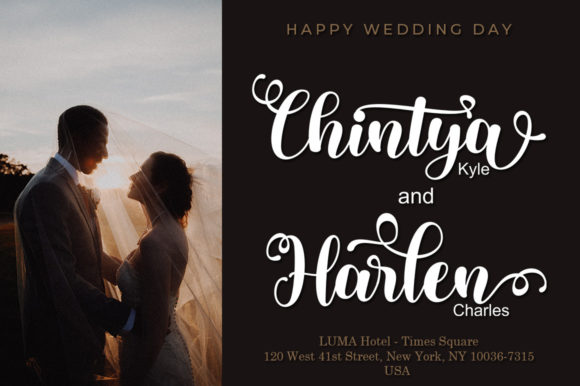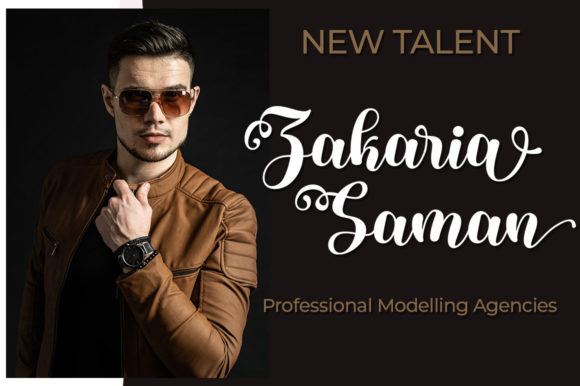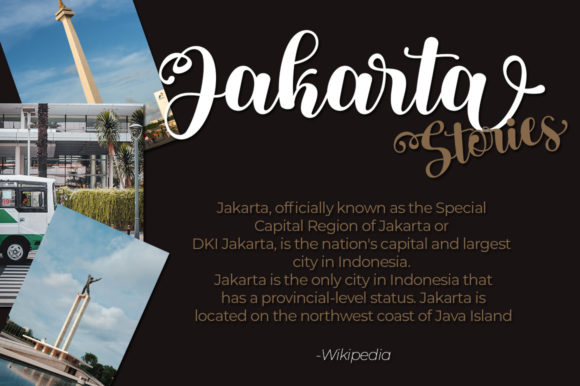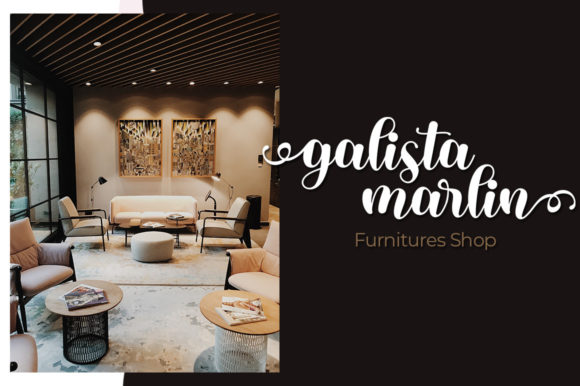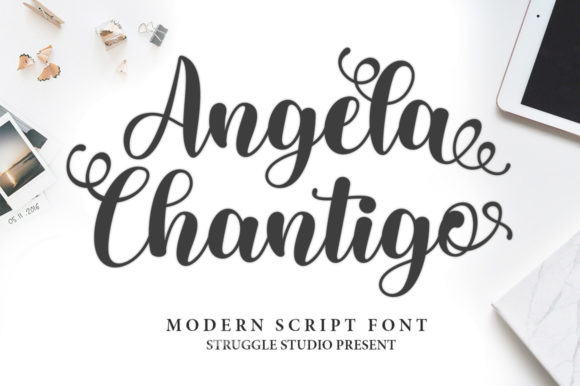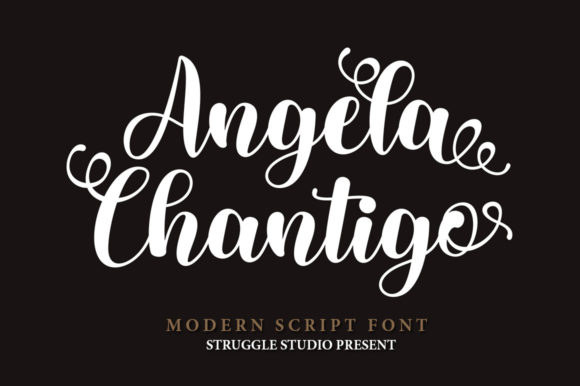
Discover the Charm of Angela Chantigo Font: A Timeless Handwritten Delight
Are you on the hunt for a font that exudes elegance, sophistication, and a touch of playfulness? Look no further than Angela Chantigo Font, a lovely and timeless handwritten font that’s perfect for creating eye-catching logos, branding, and quotes. In this article, we’ll dive into the world of Angela Chantigo, exploring its features, benefits, and uses, and why it’s a must-have for designers and crafters alike.
What is Angela Chantigo Font?
Angela Chantigo Font is a beautifully crafted handwritten font that’s designed to add a personal touch to your designs. Its unique and elegant style makes it an excellent choice for a wide range of projects, from logos and branding to quotes and social media graphics. With its flowing lines and delicate curves, Angela Chantigo is sure to capture the hearts of designers and audiences alike.
Key Features of Angela Chantigo Font
So, what sets Angela Chantigo Font apart from other fonts? Here are some of its key features:
- Timeless Design: Angela Chantigo Font boasts a classic, timeless design that’s perfect for creating designs that won’t go out of style anytime soon.
- Handwritten Style: Its handwritten style adds a personal touch to your designs, making them more relatable and engaging.
- PUA Encoded: Angela Chantigo Font is PUA encoded, which means you can access all of the glyphs and swashes with ease. This makes it easy to customize your designs and add unique touches.
- Elegant and Sophisticated: The font’s elegant and sophisticated style makes it perfect for creating high-end designs that exude luxury and refinement.
Benefits of Using Angela Chantigo Font
So, why should you choose Angela Chantigo Font for your next project? Here are some of the benefits of using this lovely font:
- Ease of Use: With its PUA encoding, Angela Chantigo Font is easy to use and customize, even for designers who are new to font editing.
- Versatility: The font’s versatility makes it perfect for a wide range of projects, from logos and branding to quotes and social media graphics.
- Unique Designs: With Angela Chantigo Font, you can create unique and eye-catching designs that stand out from the crowd.
- Time-Saving: The font’s comprehensive set of glyphs and swashes saves you time and effort, allowing you to focus on the creative aspects of your project.
Uses of Angela Chantigo Font
Angela Chantigo Font is perfect for a wide range of projects, including:
- Logos and Branding: Create eye-catching logos and branding materials that exude elegance and sophistication.
- Quotes and Social Media Graphics: Add a personal touch to your quotes and social media graphics with Angela Chantigo Font’s elegant and refined style.
- Stationery and Invitations: Create beautiful stationery and invitations that showcase your creativity and attention to detail.
- Web Design: Use Angela Chantigo Font to add a touch of elegance and sophistication to your website’s design.
Tips for Using Angela Chantigo Font
Here are some tips for getting the most out of Angela Chantigo Font:
- Experiment with Different Sizes: Try out different font sizes to see how Angela Chantigo Font looks in various contexts.
- Pair with Other Fonts: Experiment with pairing Angela Chantigo Font with other fonts to create unique and interesting combinations.
- Use Swashes and Glyphs: Take advantage of Angela Chantigo Font’s comprehensive set of swashes and glyphs to add a personal touch to your designs.
| Author | Struggle Studio |
In conclusion, Angela Chantigo Font is a lovely and timeless handwritten font that’s perfect for designers and crafters looking to add a touch of elegance and sophistication to their designs. With its PUA encoding, elegant style, and comprehensive set of glyphs and swashes, Angela Chantigo Font is a must-have for anyone looking to create eye-catching logos, branding, and quotes. So why wait? Download Angela Chantigo Font today and start creating stunning designs that capture the hearts of your audience!